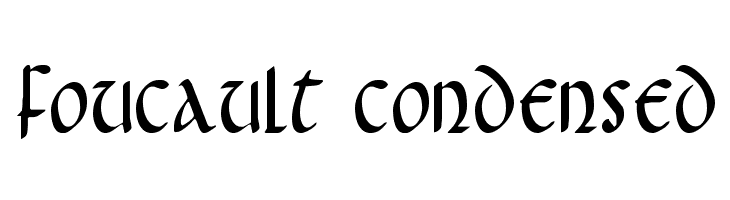
A bold, italicized font with dynamic, sharply angled characters.
A calligraphic, medieval-inspired font with sharp, angular strokes and elegant curves.
A dynamic, condensed italic font with high contrast and elegant flow.
A bold, calligraphic font with sharp, angular edges and a medieval script influence.
A dynamic, expanded italic font with a calligraphic style and medium contrast.
An elegant, italicized font with calligraphic influences and sharp, angular strokes.
A bold, left-leaning calligraphic font with dynamic strokes.
A decorative outline font with bold, angular strokes and a gothic influence.
An italic outline font with sharp angles and smooth curves, offering a dynamic and elegant look.
A dynamic, calligraphic script font with bold, expressive strokes and elegant slant.